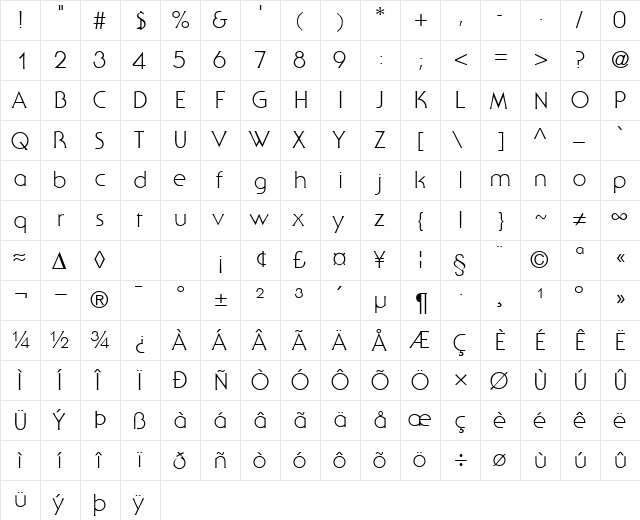
SerenadeTwoLight Regular
Design Context for SerenadeTwoLight Typeface
SerenadeTwoLight takes a measured approach to typography — its balanced proportions and neutral character make it a reliable workhorse for both digital and print work. Its slender proportions lend an understated elegance to any composition.